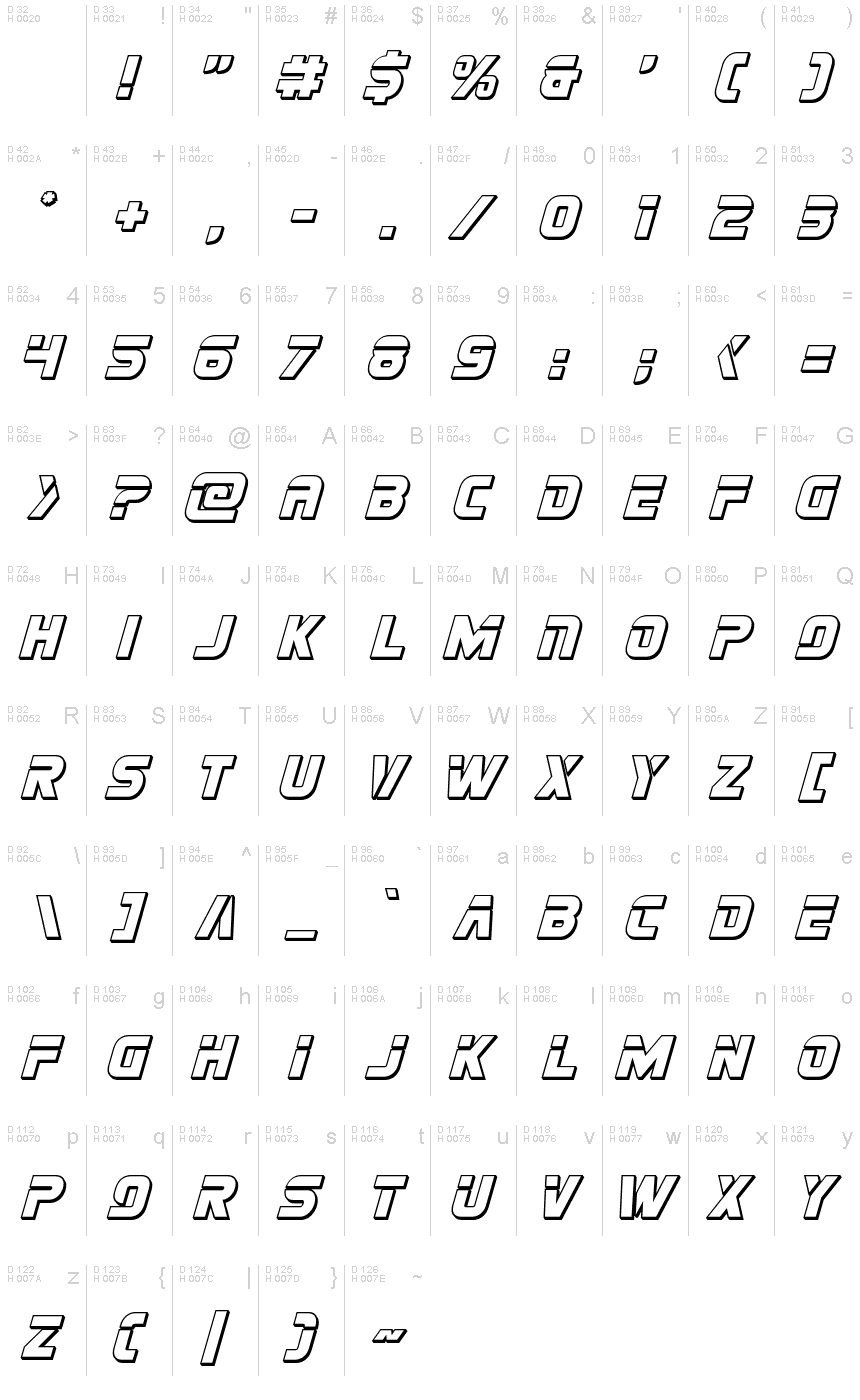
Mission: Danger 3D Italic
Mission: Danger 3D Italic is a bold and futuristic display font that adds depth and dimension to any design project. Created by Iconian Fonts, this typeface is perfect for any project that requires a strong and attention-grabbing font. The italic style adds a touch of elegance to the futuristic 3D design, making it suitable for use in branding, advertising, and poster designs. The bold weight of the font makes it easy to read at larger sizes, making it an ideal choice for headlines or titles. Let Mission: Danger 3D Italic take your designs to the next level with its unique and powerful style.